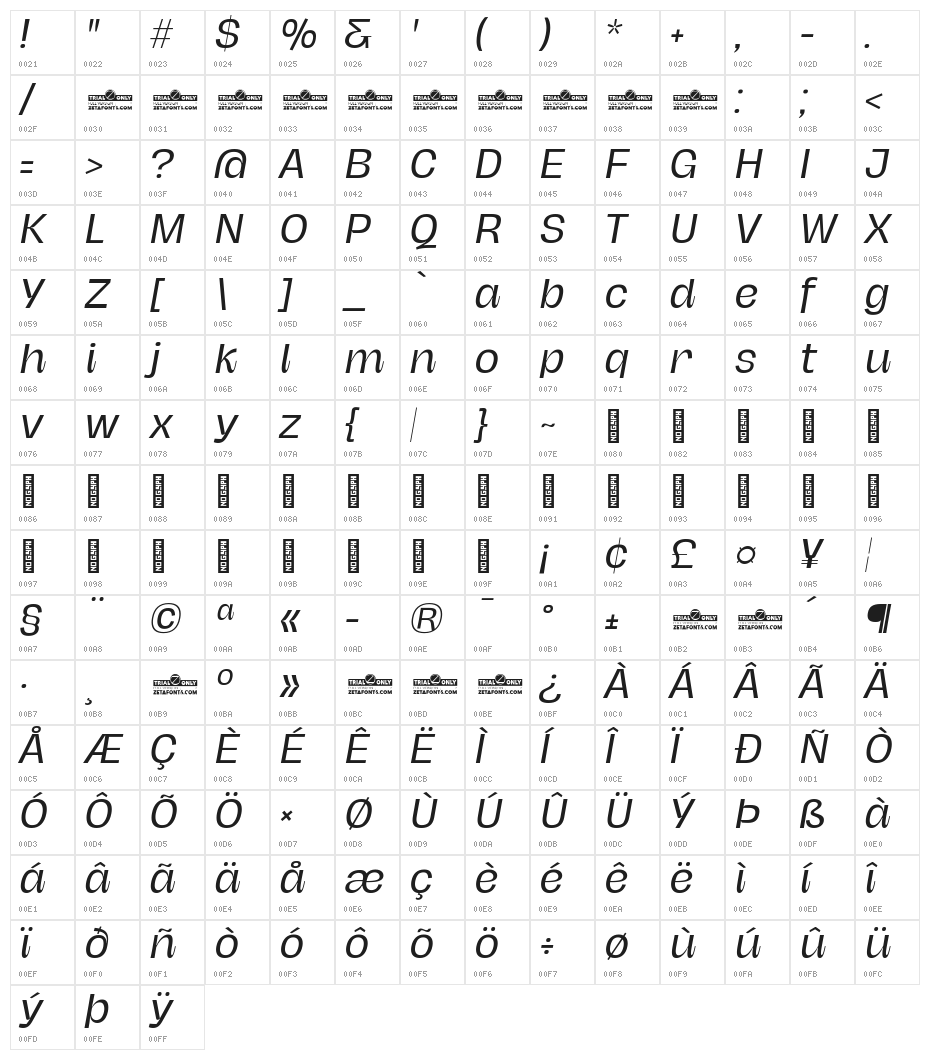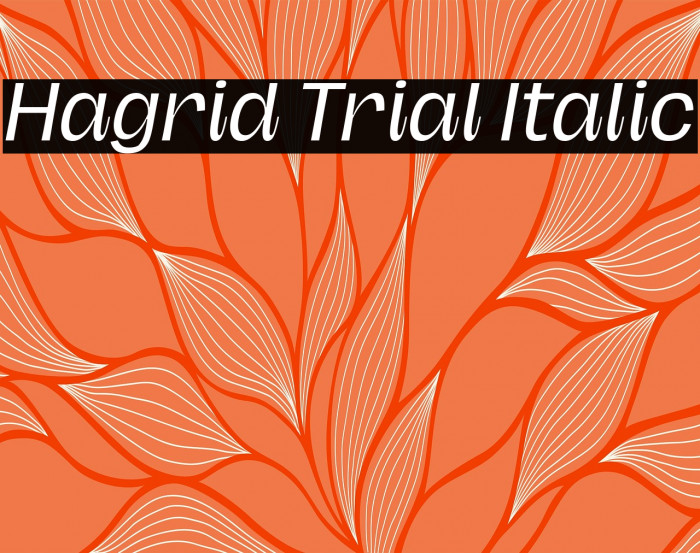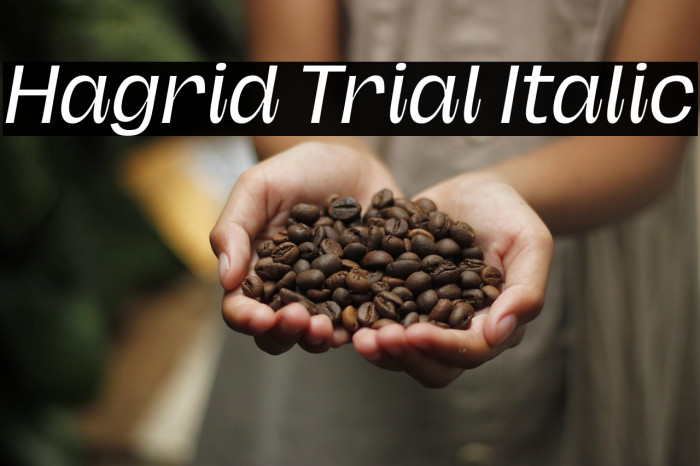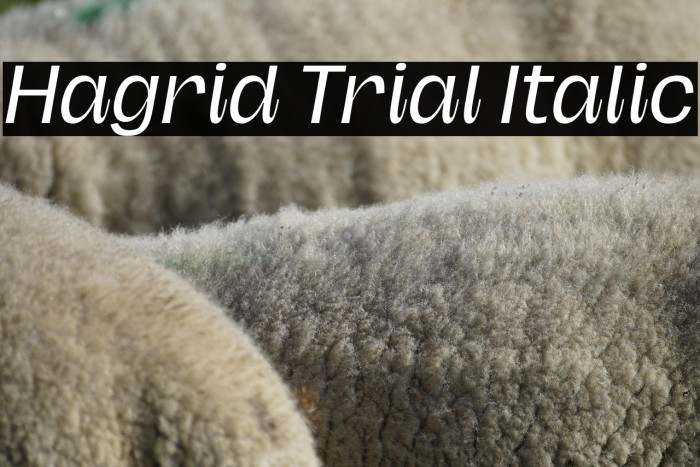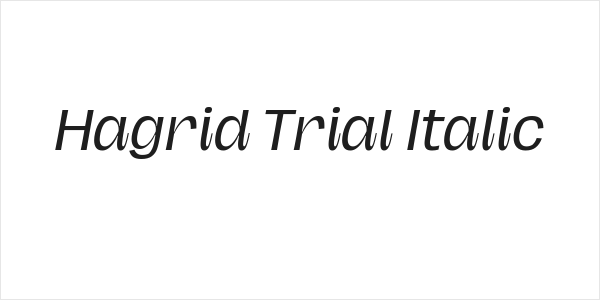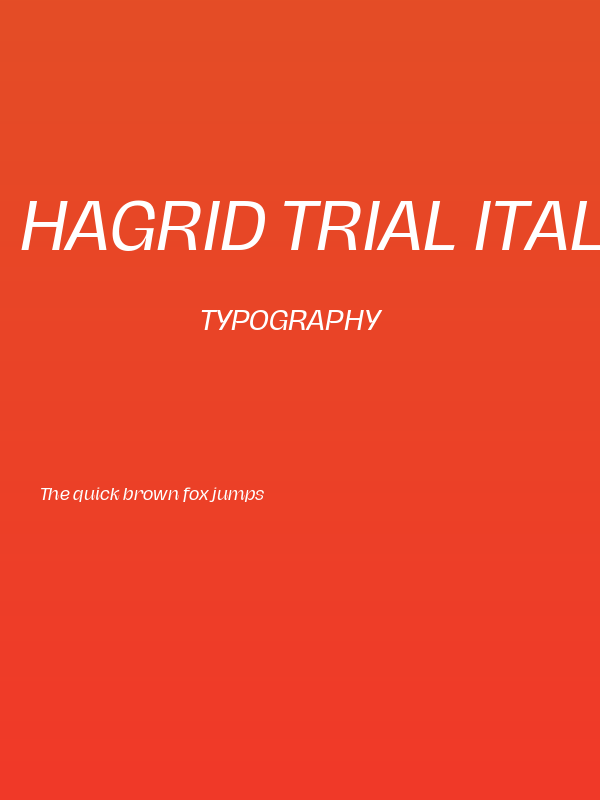
Hagrid Trial Italic Font
Hagrid Trial Italic Description
This font exhibits a sleek and modern italic style, characterized by its smooth curves and slightly elongated letterforms. The uppercase letters maintain a consistent height, while the lowercase letters feature a gentle slant that enhances readability. The numerals are well-proportioned, aligning seamlessly with the overall aesthetic. Special characters are distinct and well-integrated, ensuring versatility across various applications. The font's design is both contemporary and elegant, making it suitable for a wide range of creative projects.
Proposed ProjectsIdeal for branding, editorial design, advertising, and digital media projects where a modern and elegant touch is desired.